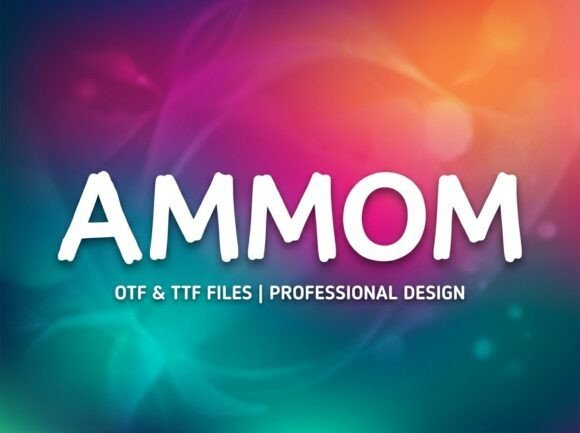
The Moment of Creative Genius
Have you ever been stuck in a design rut, struggling to find the perfect font to elevate your project? The blank screen staring back at you, the cursor blinking impatiently, waiting for inspiration to strike. It’s in these moments that the perfect font can be the game-changer, transforming your work from ordinary to extraordinary.
Enter the Ammom Font, a stunning decorative display font designed to take center stage. With its unique artistic elements and strong visual personality, this font is perfect for creators who want to break free from the ordinary and make a lasting impression. Whether you’re working on bold headlines, artistic logos, or creative packaging, the Ammom Font is a valuable addition to any designer’s toolkit.
Ammom Font Key Features
- Font Family: Ammom is a modern sans-serif font family designed for use in digital and print media.
- Unique Characteristics: Features a unique blend of geometric and organic elements, resulting in a clean and modern aesthetic.
- Font Styles: Includes a range of font styles, including regular, bold, italic, and bold italic, for added flexibility and versatility.
Ammom Font Review
As a designer, I was excited to dive into the Ammom Font and see what it had to offer. Overall, I’d say it’s a solid choice for those looking for a modern sans-serif font.
- Highly legible even at small font sizes, making it perfect for digital applications.
- Well-suited for headlines and titles, with a sleek and modern feel.
- The font’s clean lines and minimalist aesthetic make it easy to pair with a wide range of design styles.
- Limited character set and language support, which may be a drawback for designers working on global projects.
- The font may feel a bit too minimalist for certain design applications, such as publications or books.
- No bold or italic weights, which may limit its use in certain contexts.
Overall, the Ammom Font is a great choice for designers looking for a modern sans-serif font with a clean and minimalist aesthetic. While it may have some limitations, it’s definitely worth considering for your next design project.
Ammom Font: A Practical Application Guide
Tips for Getting the Most Out of Ammom Font
To get the most out of Ammom Font, try using it in combination with bold or italic styles to add emphasis to your text. You can also experiment with different font sizes and colors to create a unique look.
Ammom Font is ideal for use in creative projects such as branding, logos, and social media graphics. It’s also great for use in digital marketing materials such as email campaigns and landing pages.